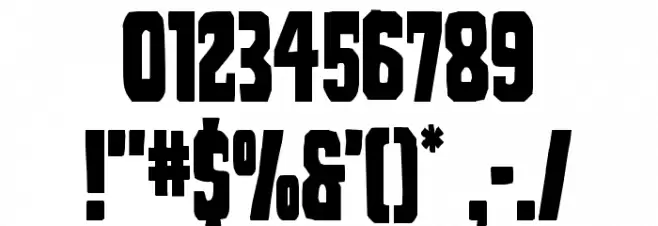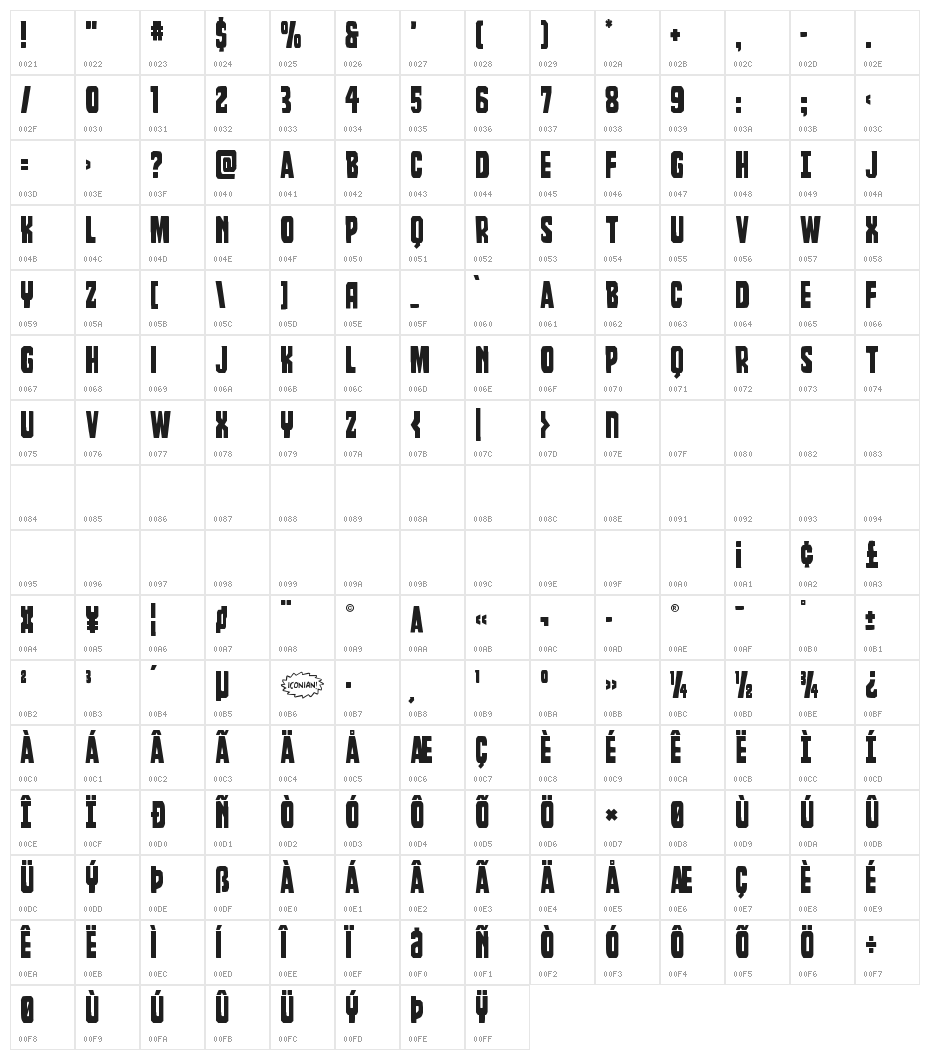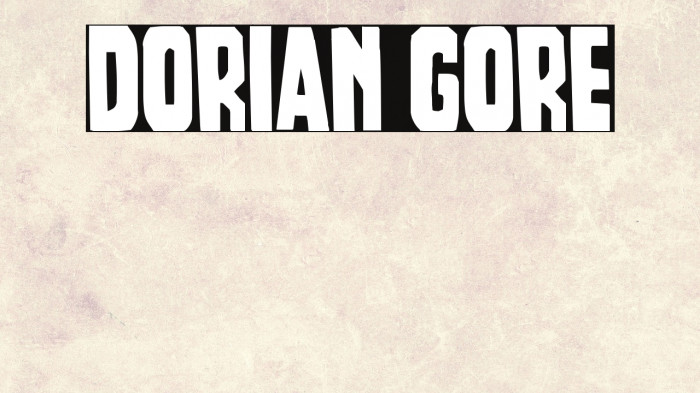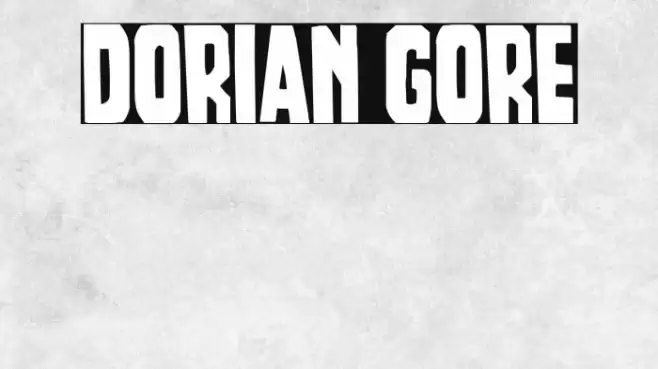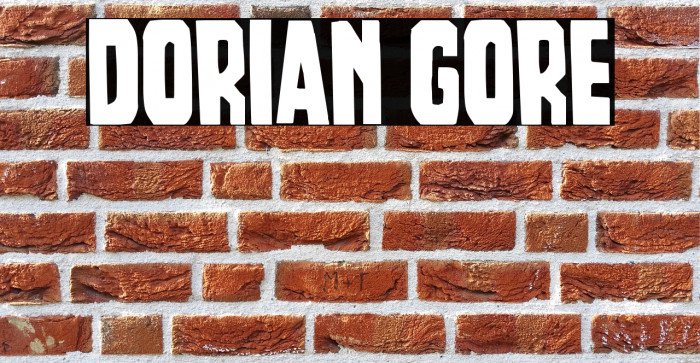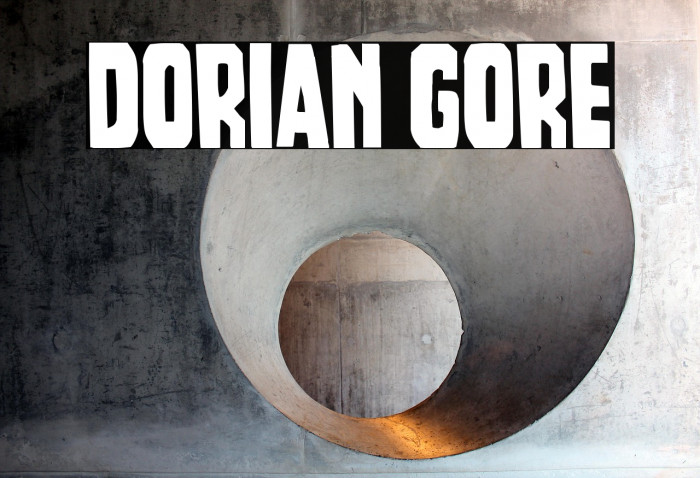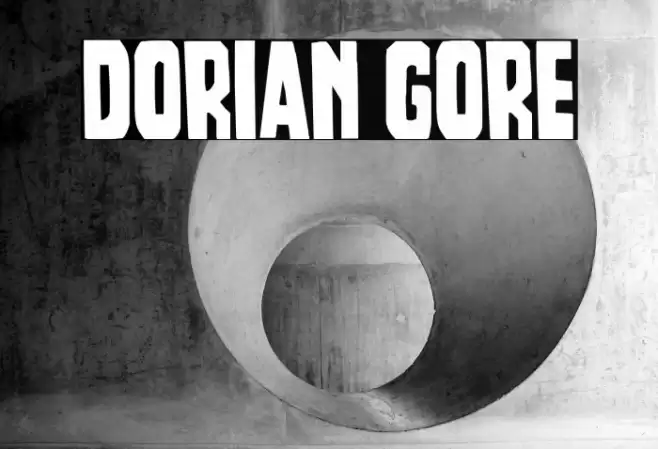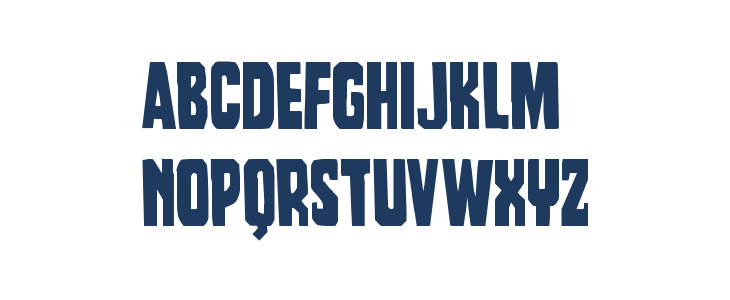
Dorian Gore Font
Dorian Gore Description
This font features bold, blocky characters with a strong presence, ideal for making a statement. The uppercase letters are particularly striking, with thick strokes and a slightly condensed form that gives them a powerful, impactful look. The numbers and special characters maintain this bold style, ensuring consistency across all glyphs. The font's design is reminiscent of vintage poster typography, with a modern twist that makes it suitable for contemporary use. Its sturdy appearance makes it perfect for headlines, logos, and any project that requires a bold visual impact.